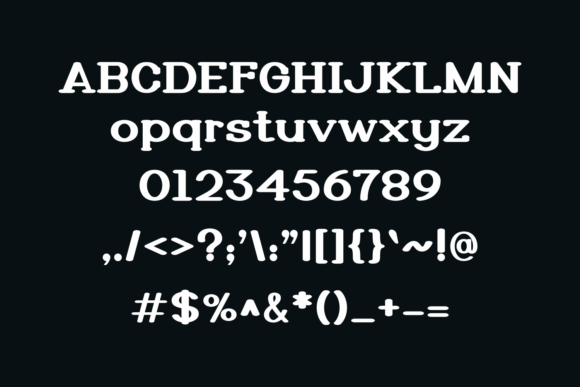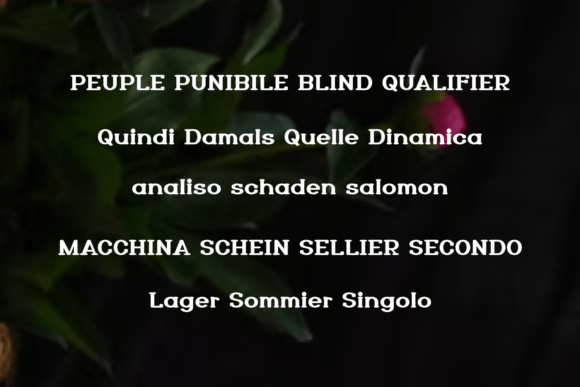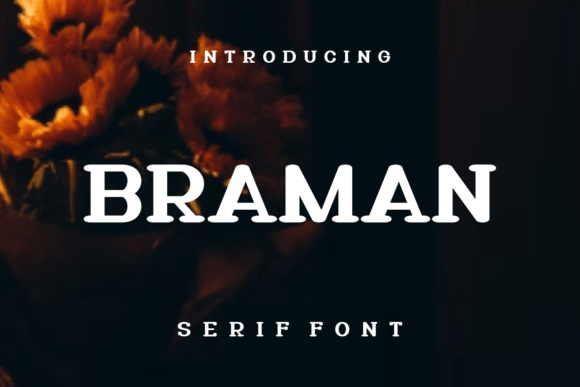
Braman Font: Elevate Your Designs with a Cool and Unique Serif Font
In the world of typography, a font can make or break a design. As a designer or crafter, you’re constantly on the lookout for that perfect font to give your creations a unique edge. Look no further than Braman Font, a cool and unique serif font that’s sure to become a staple in your font library.
What is Braman Font?
Braman is a thoughtfully crafted serif font that’s designed to add a touch of sophistication to any design project. Its unique blend of classic and modern elements makes it an incredibly versatile font that’s suitable for a wide range of applications, from elegant branding and advertising to creative crafts and DIY projects.
What Makes Braman Font So Special?
So, what sets Braman apart from other serif fonts on the market? Here are just a few features that make it a standout:
• Neatly Crafted and Highly Detailed: Braman’s design is meticulous and precise, with careful attention paid to every detail. This level of craftsmanship ensures that the font looks great at any size, from small captions to large headlines.
• Cool and Unique: Braman’s design is both modern and timeless, making it perfect for designers who want to create something fresh and exciting. Its unique character will help your designs stand out from the crowd and leave a lasting impression on your audience.
• Highly Versatile: Whether you’re working on a branding project, creating social media graphics, or designing a craft project, Braman is the perfect choice. Its classic serif design makes it suitable for a wide range of applications, from formal and elegant to playful and creative.
How to Use Braman Font in Your Designs
Ready to add Braman to your font library and take your designs to the next level? Here are a few ideas to get you started:
• Branding and Logo Design: Use Braman to create a unique and memorable logo that will help your brand stand out. Its classic serif design makes it perfect for businesses that want to convey a sense of tradition and heritage.
• Social Media Graphics: Add a touch of sophistication to your social media graphics with Braman. Whether you’re creating Facebook posts, Instagram stories, or Twitter headers, this font is sure to make your content look professional and polished.
• Crafting and DIY Projects: Braman is also perfect for crafters and DIY enthusiasts who want to add a personal touch to their projects. Use it to create custom signs, labels, and other decorative elements that will make your projects stand out.
Tips for Getting the Most Out of Braman Font
To get the most out of Braman, here are a few tips to keep in mind:
• Experiment with Different Sizes: Braman looks great at any size, so don’t be afraid to experiment with different font sizes to find the one that works best for your design.
• Play with Color: Braman’s classic serif design makes it easy to pair with a wide range of colors. Try experimenting with different color combinations to find the one that works best for your brand or design.
• Combine with Other Fonts: For added visual interest, try combining Braman with other fonts. Its classic serif design makes it a great pairing with modern sans-serif fonts or elegant script fonts.
In conclusion, Braman Font is a cool and unique serif font that’s sure to become a valuable addition to your font library. Its neatly crafted and highly detailed design makes it perfect for a wide range of applications, from elegant branding and advertising to creative crafts and DIY projects. With its versatility, classic design, and modern twist, Braman is the perfect choice for designers and crafters who want to elevate their designs and create something truly special.